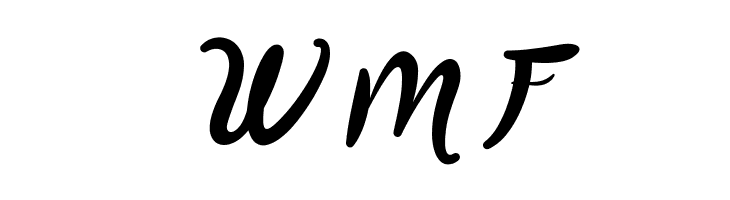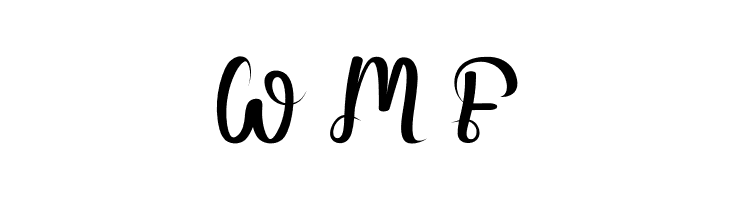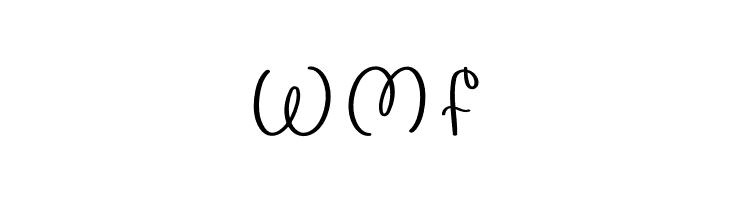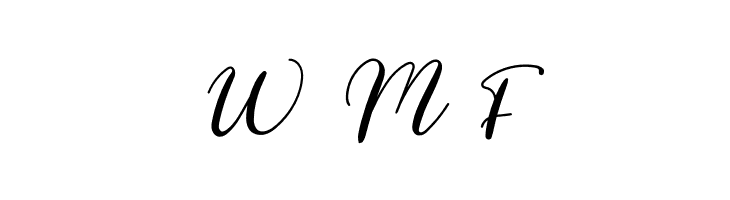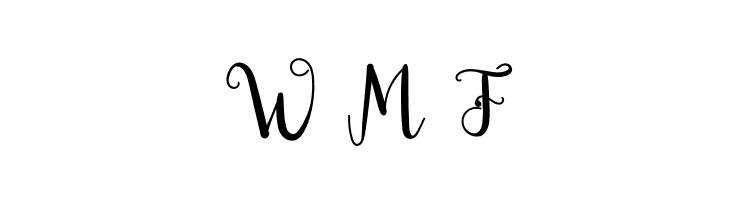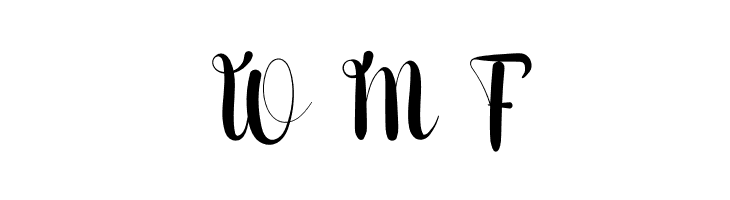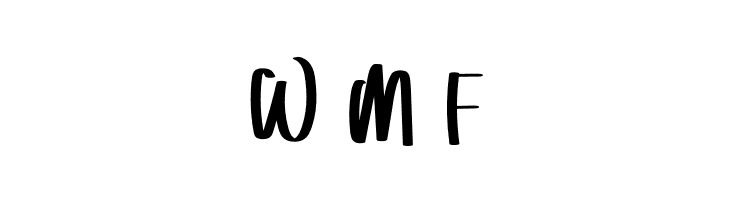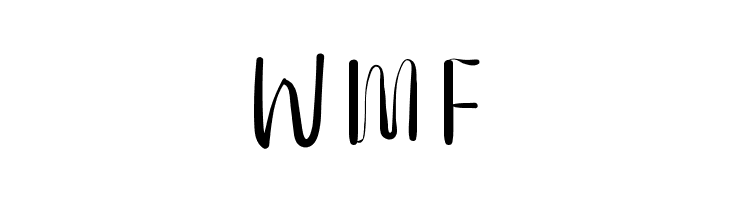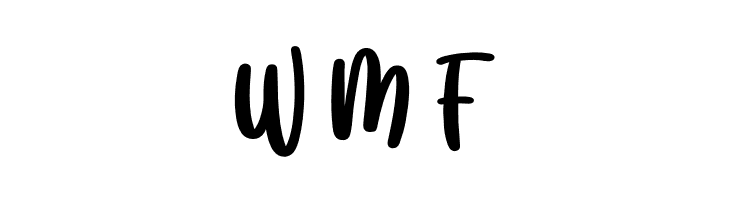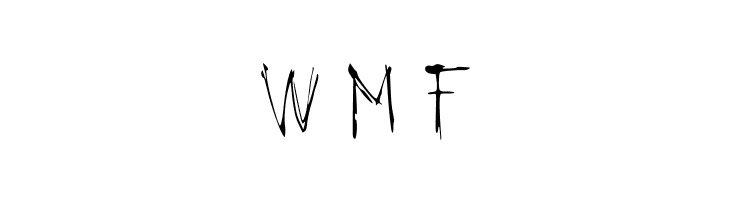
A cursive, handwritten font with elegant, flowing lines.
A bold, handwritten font with a playful and dynamic style.
A bold, brush-style script font with dynamic strokes and artistic flair.
A playful, handwritten-style font with elegant, flowing lines.
A playful, cursive-like font with flowing strokes and varying thickness.
A bold, rounded font with a modern and approachable style.
A modern, rounded sans-serif font with a clean and approachable style.
A bold, brush-stroke font with dynamic and irregular edges.
A playful, handwritten font with dynamic strokes and a modern twist.
A playful, bold handwritten font with rounded, thick strokes.
A sophisticated, cursive script font with elegant, flowing characters.
A bold, flowing script font with elegant, cursive connections.
A whimsical, hand-drawn font with playful curves and unique details.
A playful, casual handwritten font with rounded, consistent strokes.
A playful, casual handwritten font with flowing, consistent strokes.
A bold, expressive handwritten font with a dynamic and lively style.
A whimsical, cursive script font with elegant loops and swirls.
A playful and whimsical script font with elegant, flowing lines and loops.
An elegant and flowing script font with graceful curves and decorative swashes.
A bold, elegant script font with flowing, connected characters.
A bold, playful handwritten font with rounded, dynamic letterforms.
A bold, modern sans-serif font with clean lines and rounded edges.
A flowing, cursive script font with elegant, connected characters.
A bold, impactful font with thick, uniform strokes and a slightly condensed appearance.
A playful and artistic script font with dynamic strokes and elegant curves.
A modern, geometric font with tall, narrow characters and uniform stroke width.
A whimsical, handwritten font with tall, narrow uppercase and rounded lowercase letters.
An elegant script font with flowing, cursive letterforms and artistic flair.
A playful, handwritten-style font with bold, irregular characters.
A graceful script font with fluid, connected strokes and a natural handwriting style.
A flowing, cursive script font with elegant curves and loops.